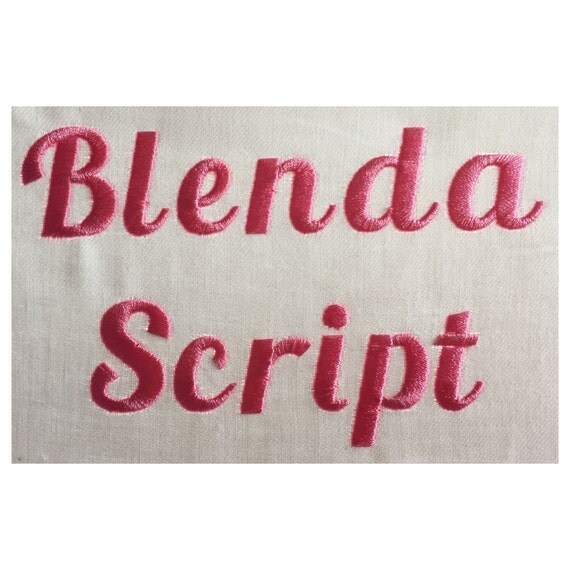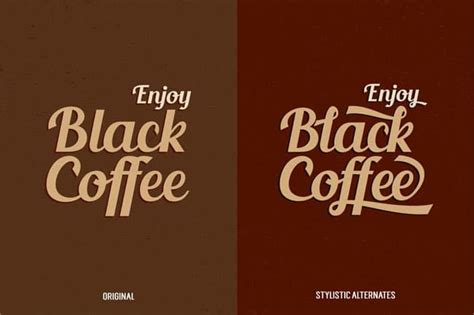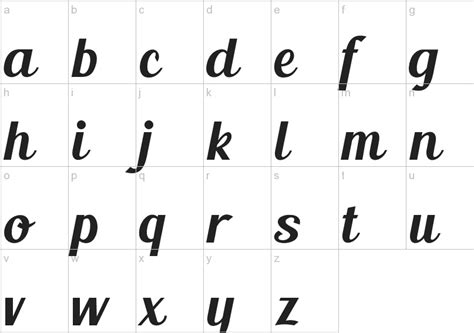
Some scripts are more formal like elegant calligraphy, while others are casual like cursive handwriting. Blenda script free font in ttf format size: Seniors studio copyright (c) 2014 by seniors studio. Blenda script is a free experimental font inspired by lobster font, a bold vintage script. Such as news, posters, logos, badges etc. To enable opentype stylistic alternatives intelligent programs or manually select a character from the glyph palette. In magazines, posters, logos, badges etc. Such as news, posters, logos, badges etc.
Blenda script is a free experimental font inspired by lobster font, a bold vintage script. Can be used for various purposes. Blenda script is a free experimental font inspired by lobster font, a bold vintage script. Can be used for various purposes. Such as news, posters, logos, badges etc. Such as news, posters, lo. This font belongs to the various category. Download blenda script font with regular style.
To enable opentype stylistic alternatives intelligent programs or manually select a character from the glyph palette. Blenda script is a free experimental font inspired by lobster font. You can find 4921 fonts like this. Script font is a broad style that refers to any typeface that looks like it was drawn by hand. Blenda script font by seniors studio.
To enable opentype stylistic alternatives intelligent programs or manually select a character from the glyph palette. Blenda script is a free experimental font inspired by lobster font, a bold vintage script. This retro style and bold custom font is from seniors. Download it free at fontriver.com! Download free fonts for mac, windows and linux. Such as news, posters, logos, badges etc. The blenda script font has been downloaded 123,760 times. Such as news, posters, logos, badges etc.
Some scripts are more formal like elegant calligraphy, while others are casual like cursive handwriting. Blenda script is a free experimental font inspired by lobster font, a bold vintage script. Such as news, posters, logos, badges etc. This bold vintage script can be used for various purposes: Seniors studio copyright (c) 2014 by seniors studio. Blenda script is a free experimental font inspired by lobster font, a bold vintage script. Blenda script download free in category script, calligraphy. Such as news, posters, lo. Blenda script is a free experimental font inspired by lobster font, a bold vintage script. This font was posted on 05 may 2015 and is called blenda script font. Mac, pc | truetype ttf, opentype. To enable opentype stylistic alternatives intelligent programs or manually select a character from the glyph palette.